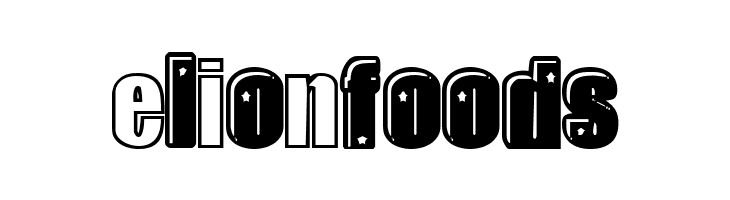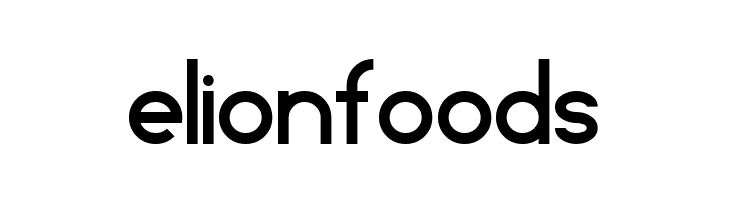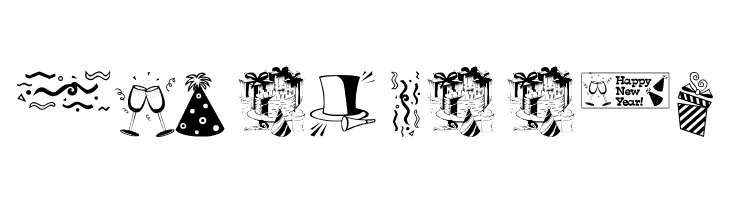
A bold, modern typeface with clean lines and excellent readability.
A modern sans-serif font with clean lines and excellent readability.
A modern, light sans-serif font with low contrast and excellent readability.
A clean, accessible sans-serif font with uniform strokes and excellent readability.
A bold, modern sans-serif font with excellent readability and balanced proportions.
A bold, decorative font with stars and stripes pattern, ideal for patriotic themes.
A modern, rounded sans-serif font with excellent readability.
A decorative font with festive, mask-like embellishments on each letter.
A modern, geometric sans-serif font with clean lines and excellent readability.
A festive dingbat font with party-themed icons and celebratory text.